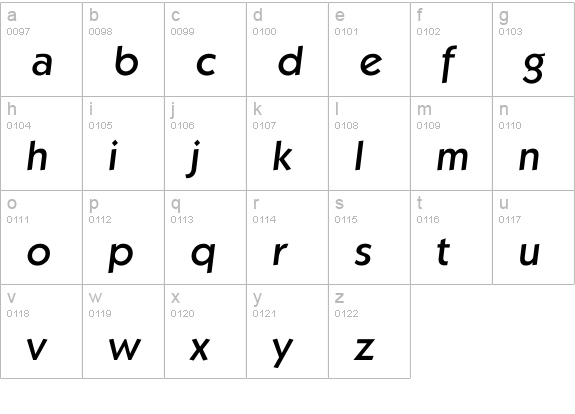
Ikabel Medium is a balanced, medium-weight variant in the Ikabel typeface family \xE2\x80\x94 well suited to sub-headlines, navigation, and balanced editorial work.
Ikabel Medium is a striking and versatile font that exudes elegance and sophistication. Its sleek, modern design is perfect for a wide range of creative projects, from branding and advertising to editorial layouts and web designs. The medium weight of this font strikes the perfect balance between boldness and readability, making it suitable for both headlines and body text. With its clean and geometric shapes, Ikabel Medium captures attention effortlessly, while maintaining a sense of professionalism and refinement. Each letter is meticulously crafted, ensuring optimal legibility and visual harmony. The generous spacing between characters further enhances readability and allows for a smooth and enjoyable reading experience. One of the most appealing features of Ikabel Medium is that it is available for free. Yes, you read that right! This exceptional font can be freely downloaded at FontsMarket.com, a trusted source for high-quality fonts. Whether you are a professional designer or a casual enthusiast, you can now access this incredible font without any cost, allowing you to bring your creative vision to life without breaking the bank. Ikabel Medium's versatility extends beyond its appearance, as it also supports a wide range of international languages, making it a go-to choice for global projects. Its extensive character set includes accented letters, punctuation marks, and special characters, ensuring that you can accurately express yourself in any language. So, why wait? Download Ikabel Medium today and unlock a world of design possibilities. Add a touch of elegance and sophistication to your next project with this remarkable font, and watch as your creations stand out from the crowd. Remember, it's free and readily available at FontsMarket.com, so don't miss out on this incredible opportunity to elevate your design game.